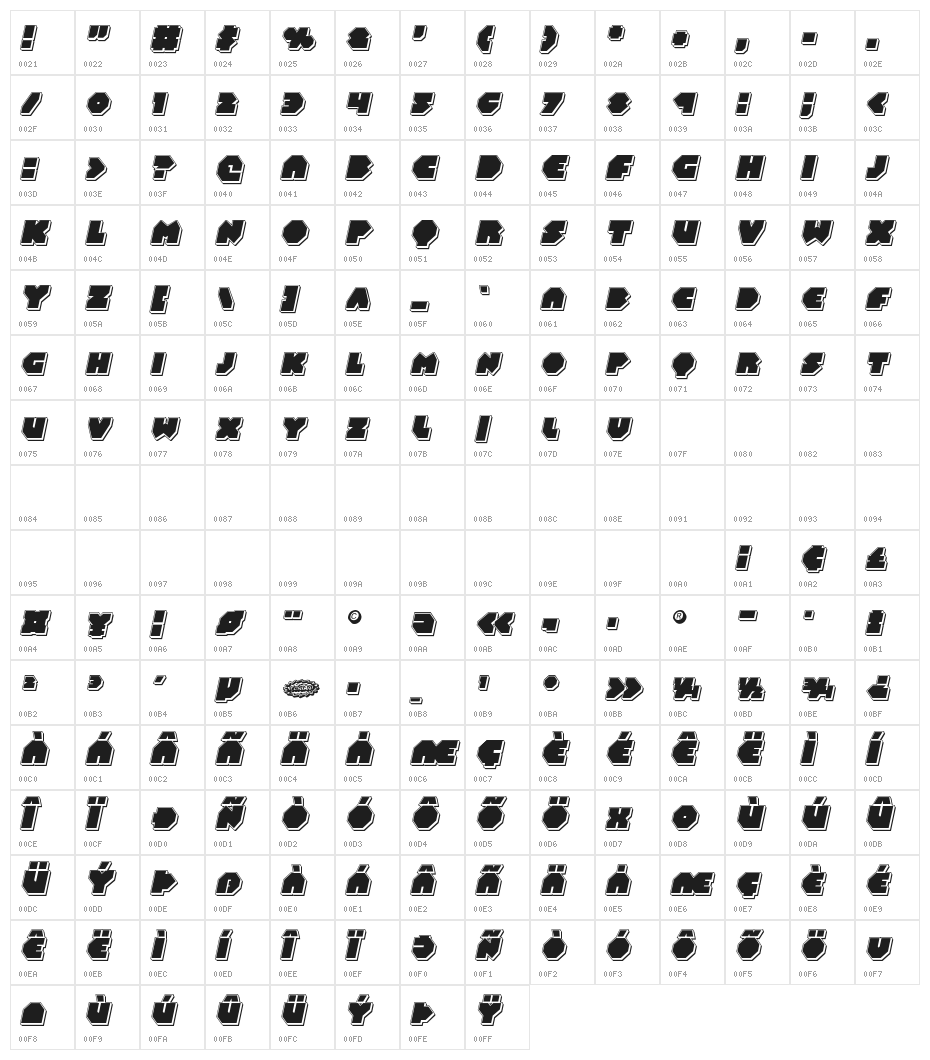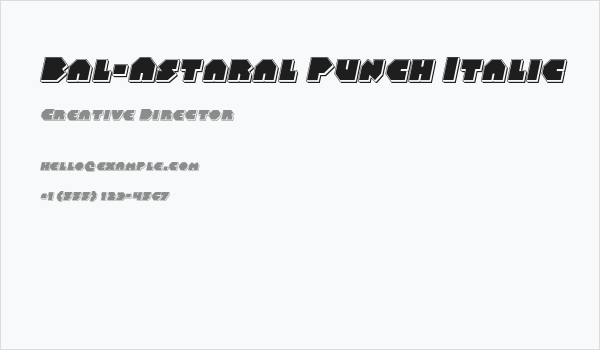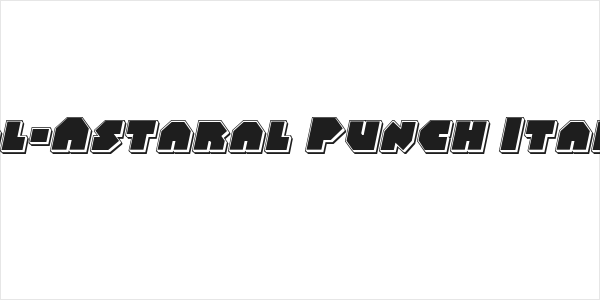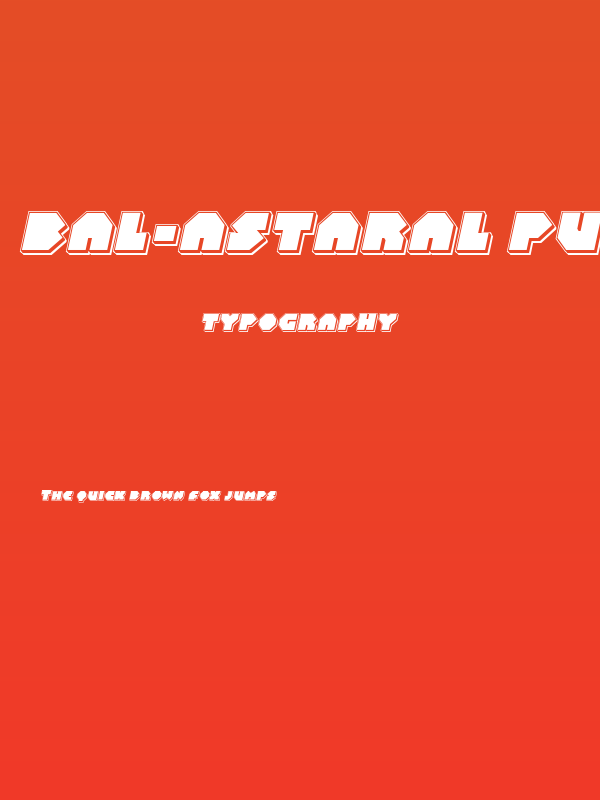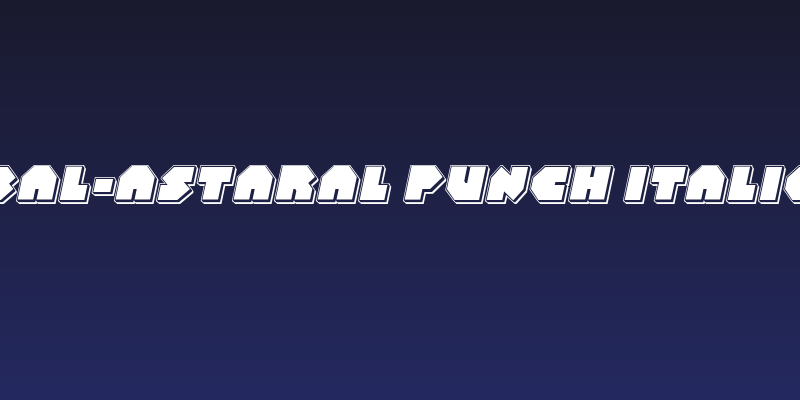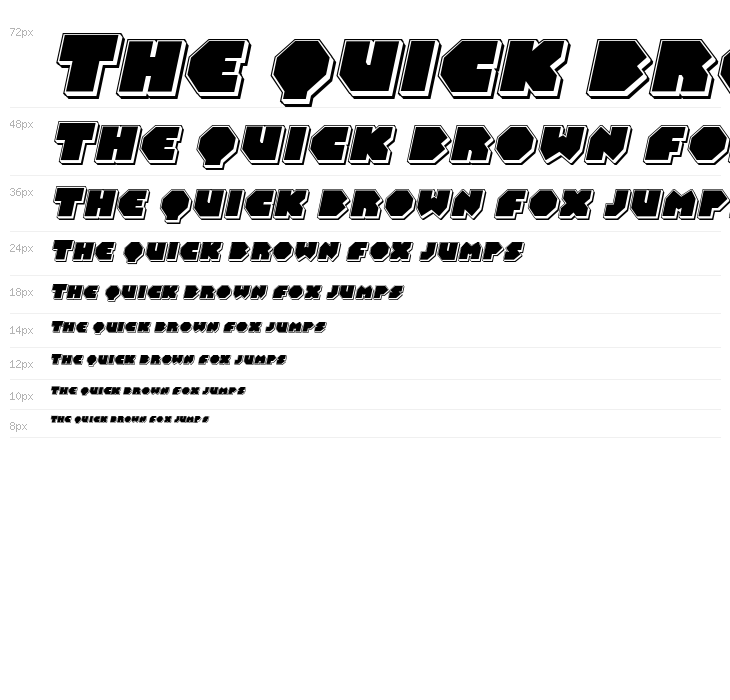
Bal-Astaral Punch Italic Font
Bal-Astaral Punch Italic Description
This font features a bold, geometric design with a distinct three-dimensional effect. Each character is crafted with sharp angles and a thick outline, giving it a striking and futuristic appearance. The italic slant adds a dynamic feel, enhancing the sense of movement and energy. The uppercase and lowercase letters maintain a consistent style, while the numbers and special characters are equally bold and impactful. This font is ideal for projects that require a strong visual presence and a modern, edgy aesthetic.
| Proposed Projects | Ideal for video game titles, sci-fi posters, tech branding, and dynamic advertisements. |